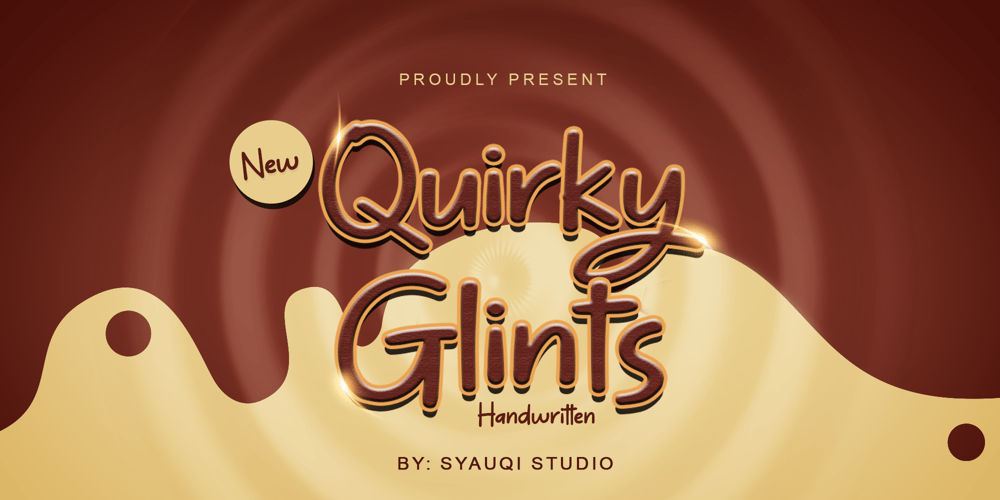
Quirky Glints Font Family was designed by Muhammad Asroful Umam and published by Syauqi Studio. Quirky Glints contains 2 styles and family package options. Introducing Quirky Glints: Fun and Playful Handwritten FontQuirky Glints is a delightful and whimsical font that embodies the spirit of playful creativity. Designed with the charm of natural handwriting, Quirky Glints infuses any text with a sense of joy and spontaneity. Each character is crafted to capture the essence of authentic, hand-drawn typography, making it perfect for projects that seek to add a touch of fun and personal flair.Whether you’re designing cheerful invitations, engaging children’s books, or lively branding materials, Quirky Glints fluid strokes and vibrant personality will bring your message to life with a distinctive and inviting touch. Its versatility ensures it stands out in both print and digital mediums, offering a refreshing alternative to more rigid typefaces.Embrace the light-hearted charm of Quirky Glints and let your designs radiate with joy and creativity.Features:- Uppercase & Lowercase- Number & Punctuation- Ligature & Stylistic alternate- Multilingual SupportTo fully access the font’s features, we recommend using programs that support OpenType features. This will allow you to access glyphs directly on the same panel without copy/pasting each glyph. Additionally, the OpenType panel allows you to turn on standard ligatures, which can automatically change letters for available ligatures.